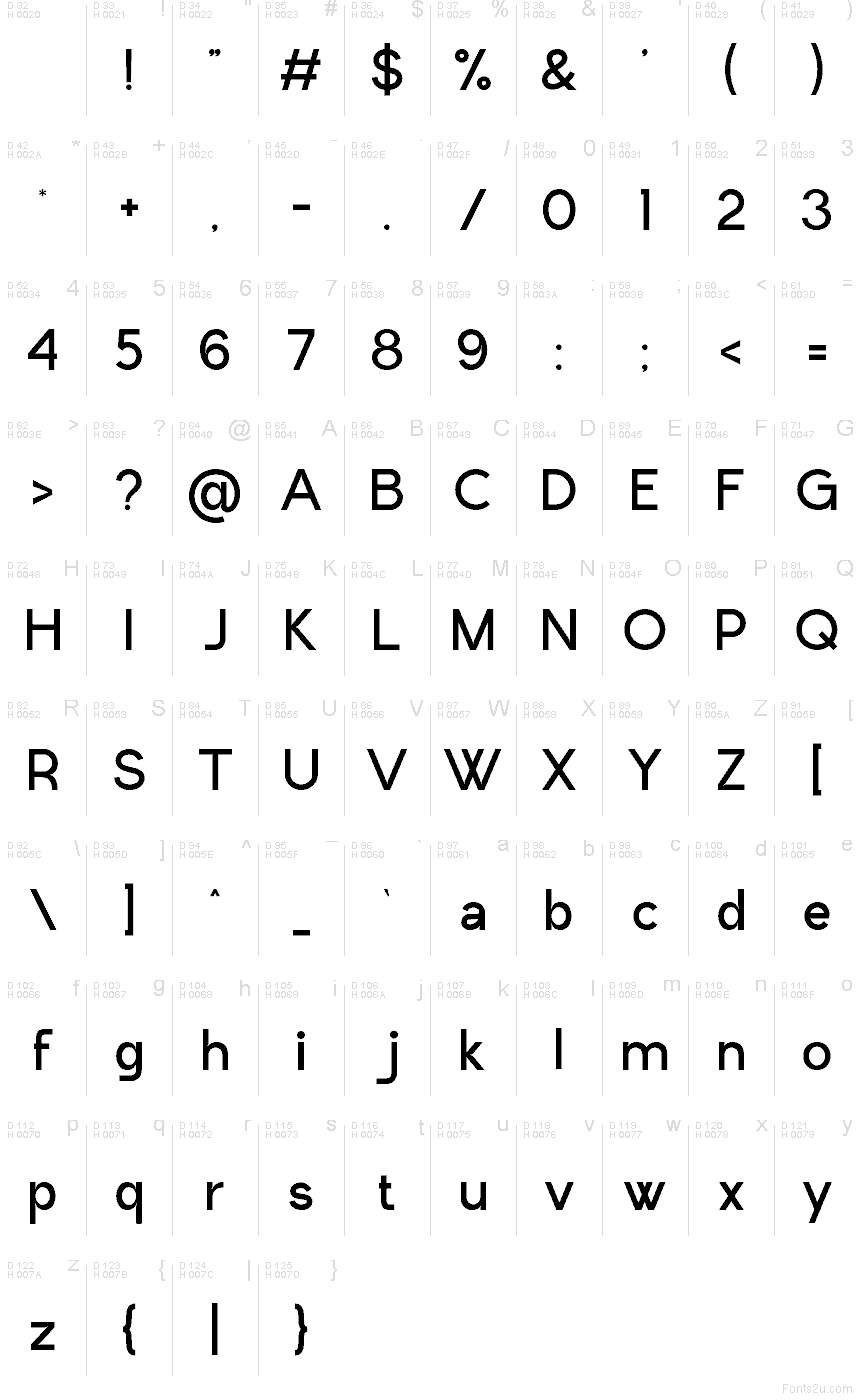
Elsanz Regular
Elsanz font by ErmediaStudio is a free sans serif font that smooths out the gap between friendly and professional. Its letters feel clean and contemporary, with round, open bowls and firm verticals that give text a steady rhythm. The result is a typeface that looks modern without feeling cold—crisp enough for interfaces, but soft enough for human-centered brands.
Using Elsanz, you get a consistent texture that holds up from bold headlines down to compact labels. This free font works beautifully for branding, app and web UI, posters, packaging, social media graphics, and editorial titles. Set Elsanz slightly loose for airy, premium layouts, and pair it with a simple serif or lighter sans for body copy to keep your hierarchy clear and effortless.